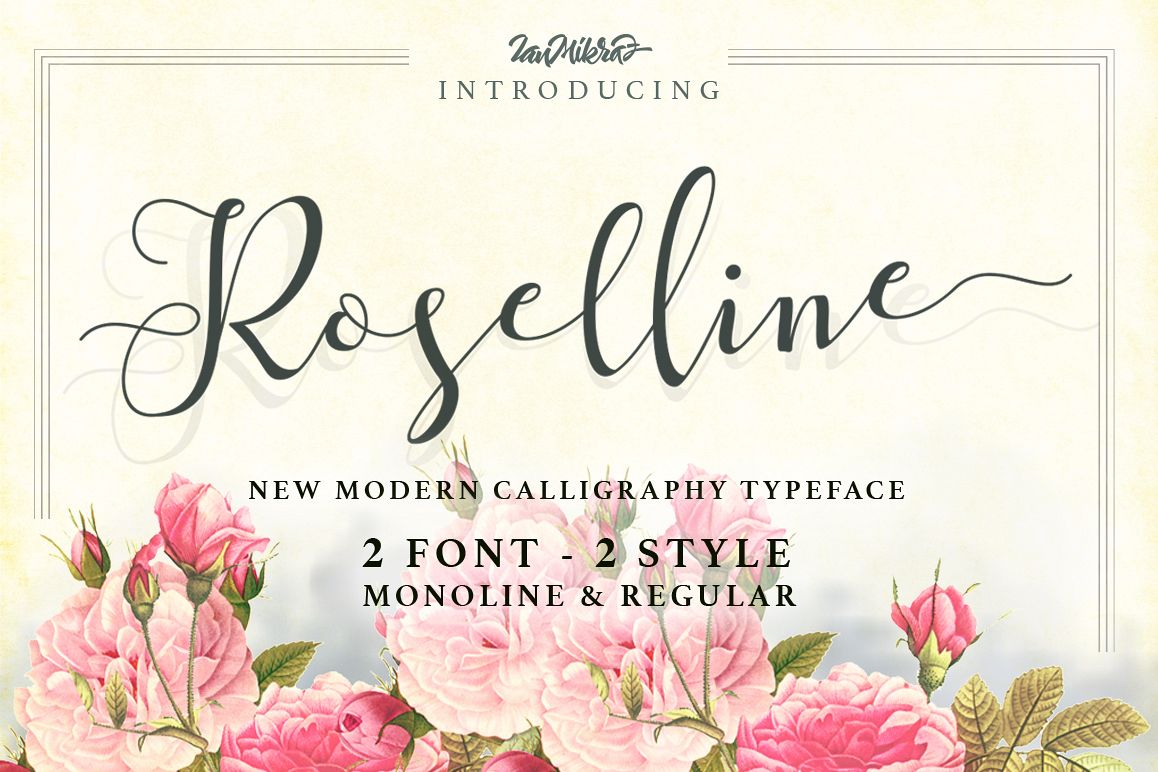
Roselline Typeface
Introducing Roselline Script
Roselline Script is a new Modern Calligraphy Typeface Fonts collection from Ianmikraz studio, combines from copperplate to contemporary typeface, classic, beauty and elegant touch.
Roselline Script features 370 glyphs and 177 alternate character contain with opentype features and has given PUA unicode (specially coded fonts), with tons of alternate characters. Stylistic Alternates, Standart Ligature and more.You can access all those alternate characters by using OpenType savvy programs such as Adobe Illustrator, Adobe InDesign and CorelDraw X6-X7.For other programs that doesn't support OpenType Features or Glyphs Panel such as Photoshop, you can use Character Map in Windows to access the alternate characters :)
Roselline Script is suitable for Apparel Brand, any greeting cards, Painting design style, or any design that needs natural and personal touch. Mix and match the alternate characters to add an attractive message to your design.
Features of Roselline Script is;
• Swash Alternates
• Standart ligatures
• Stylistic Altenates
• Stylistic sets